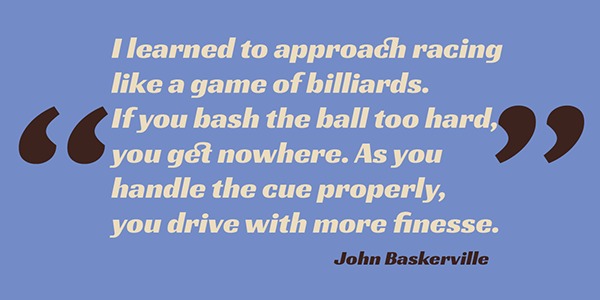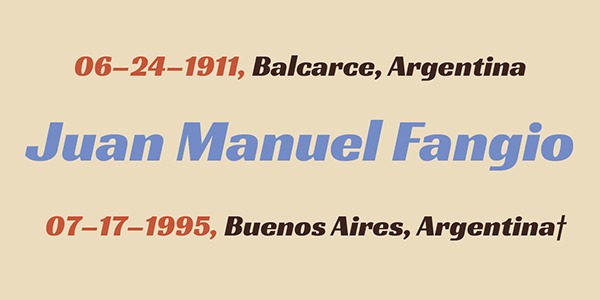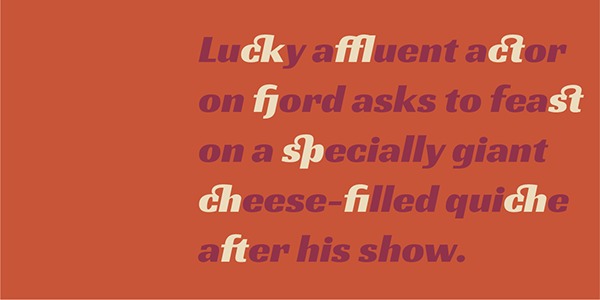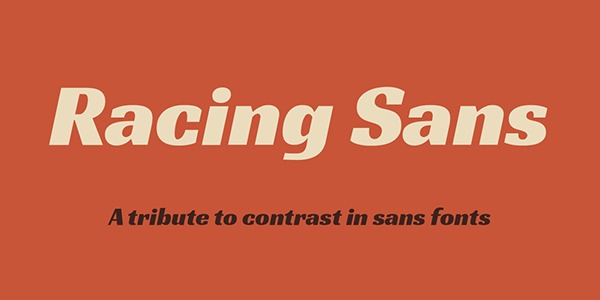
Racing Sans Font
This font is dashing and expressive, with a pronounced x-height and evocative, flowing letterforms. This font has a bold weight and looks amazing in logos, branding, arranging wedding invitations, business cards, packaging, titles and much more and also works perfectly with text, it is very readable and recognizable.